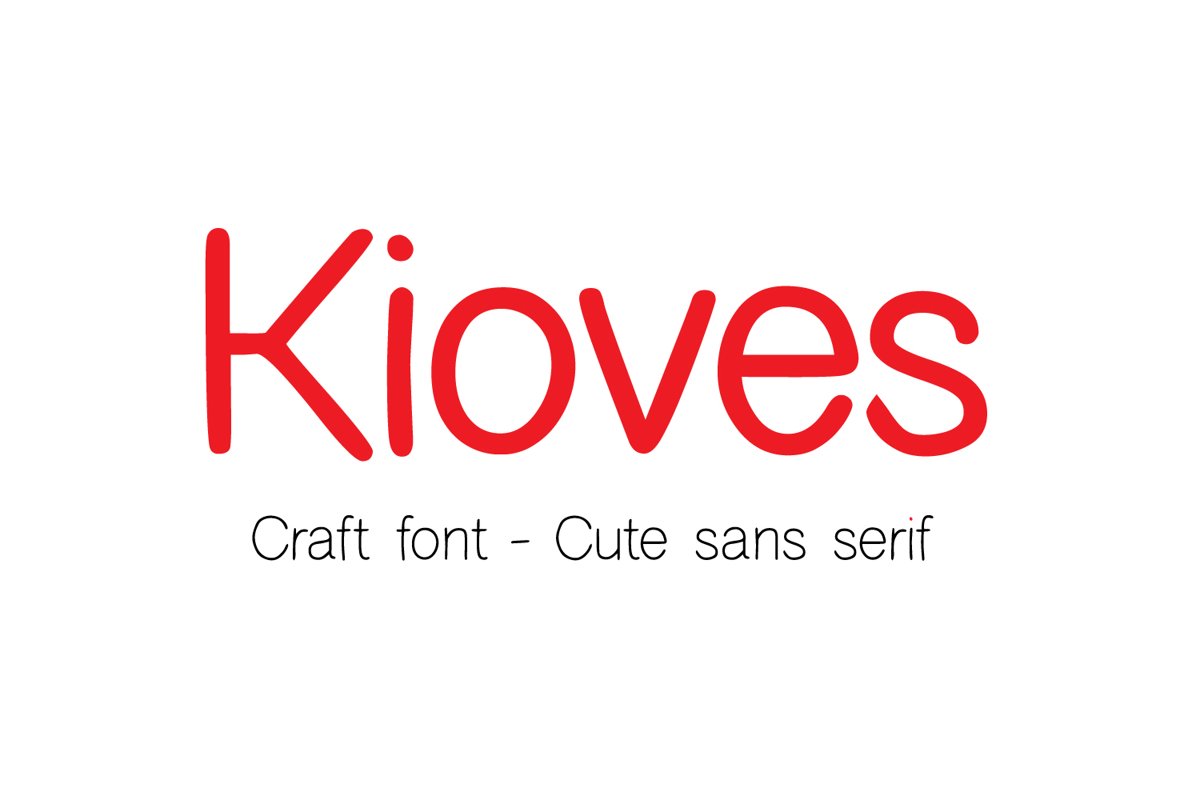
Kioves
Kioves Bold
Kioves Bold italic
Kioves italic
'Kioves' is a sans font in the handwritten version. is an antidote to boredom from measurable and computerized forms.
we prepared it in two thicknesses, normal and bold. each in the regular and slant versions.
suitable for various types of craft.